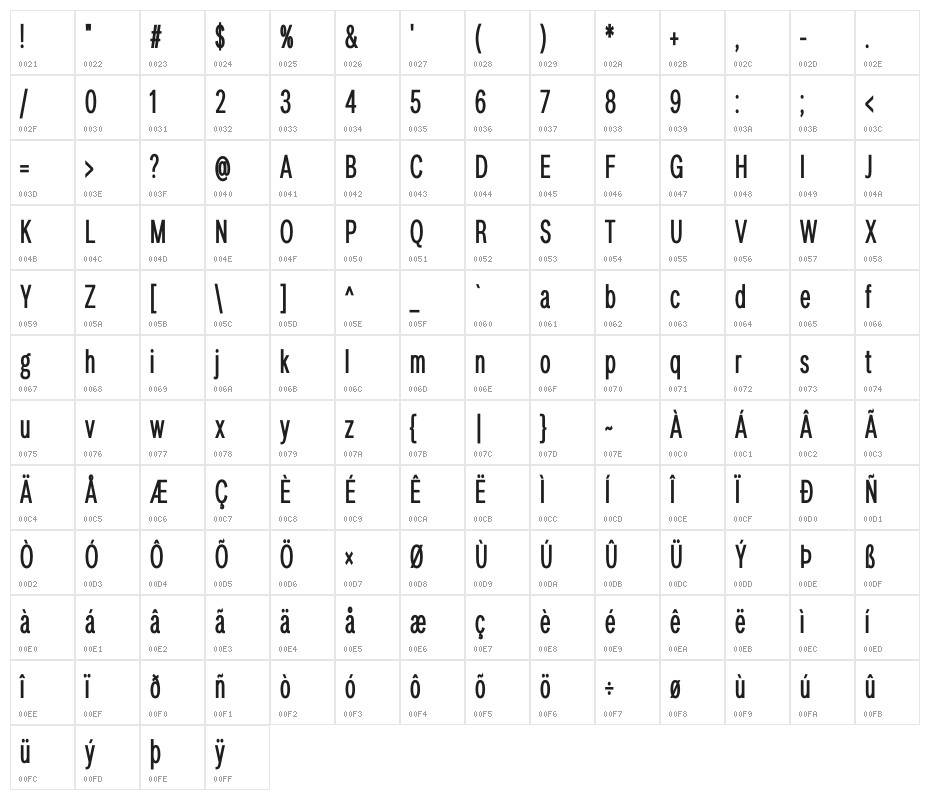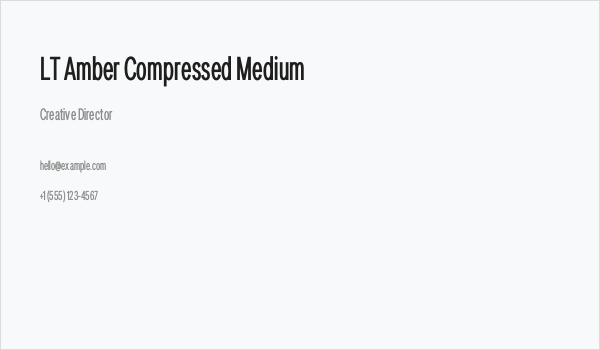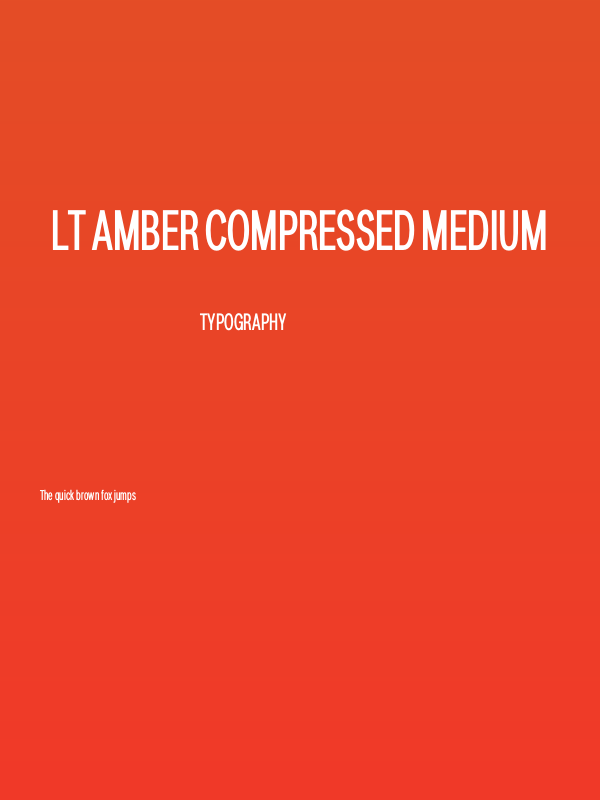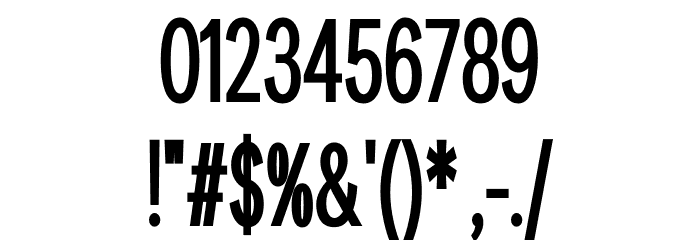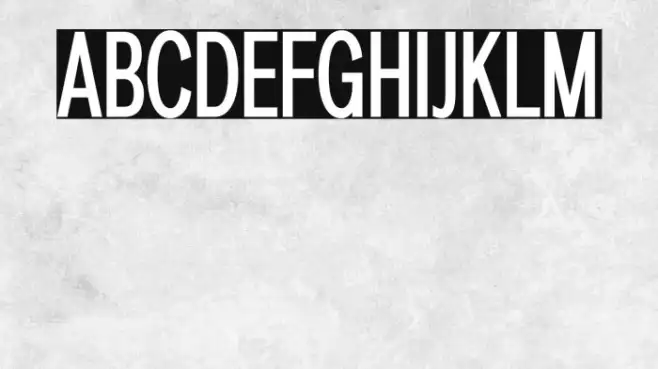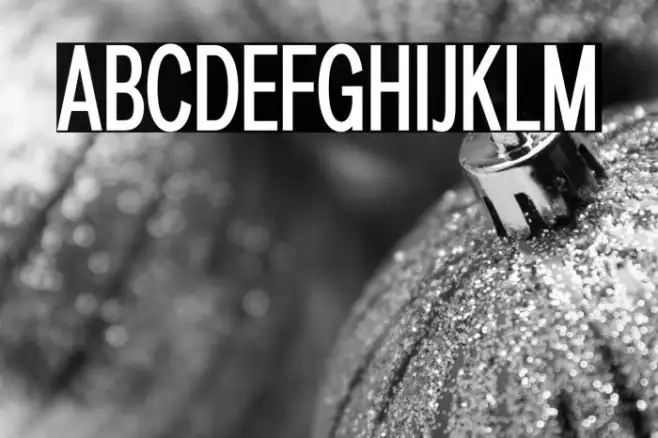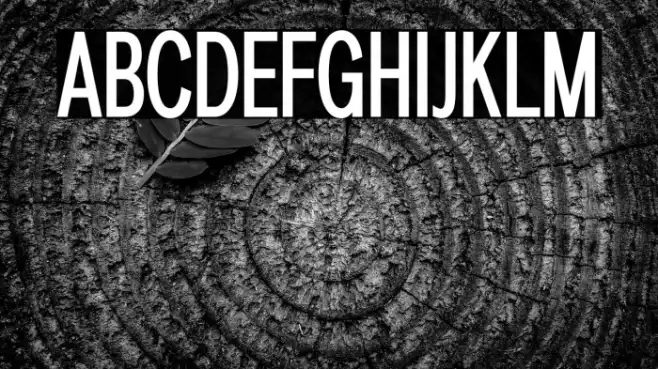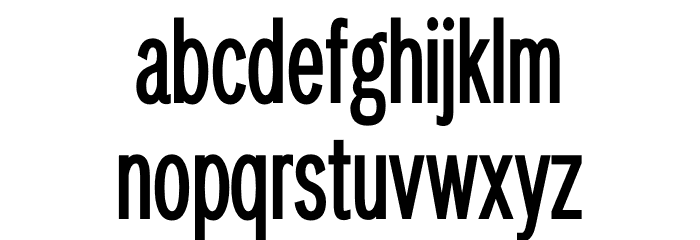
LT Amber Compressed Medium Font
LT Amber Compressed Medium Description
This font features a bold and modern design with a compressed width, making it ideal for space-saving applications. The characters are tall and narrow, providing a sleek and contemporary appearance. The uppercase letters are uniform in height, while the lowercase letters maintain a consistent baseline, enhancing readability. The numerals are clear and distinct, ensuring easy legibility. Special characters are well-defined, adding versatility to the font's usage. The overall style is clean and professional, suitable for a variety of design projects.
| Proposed Projects | Ideal for headlines, posters, branding, and advertising where space is limited. |